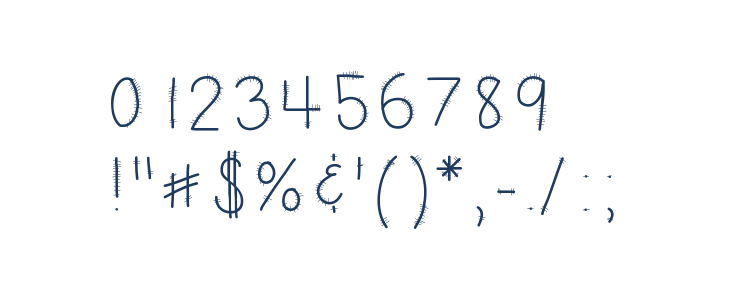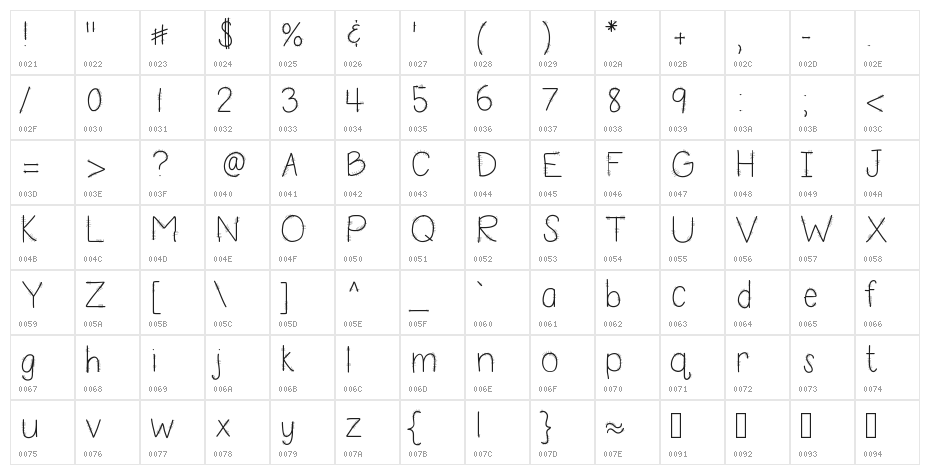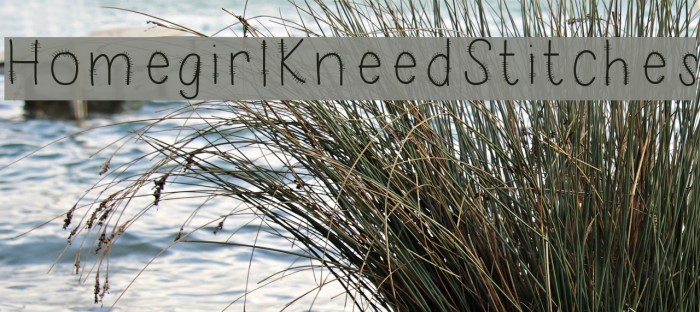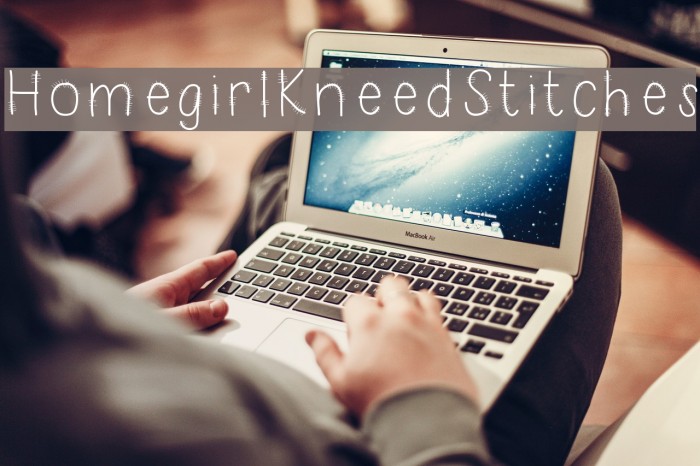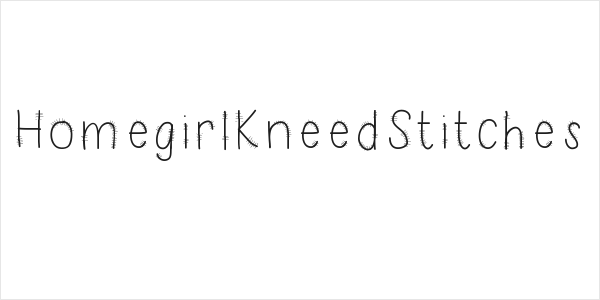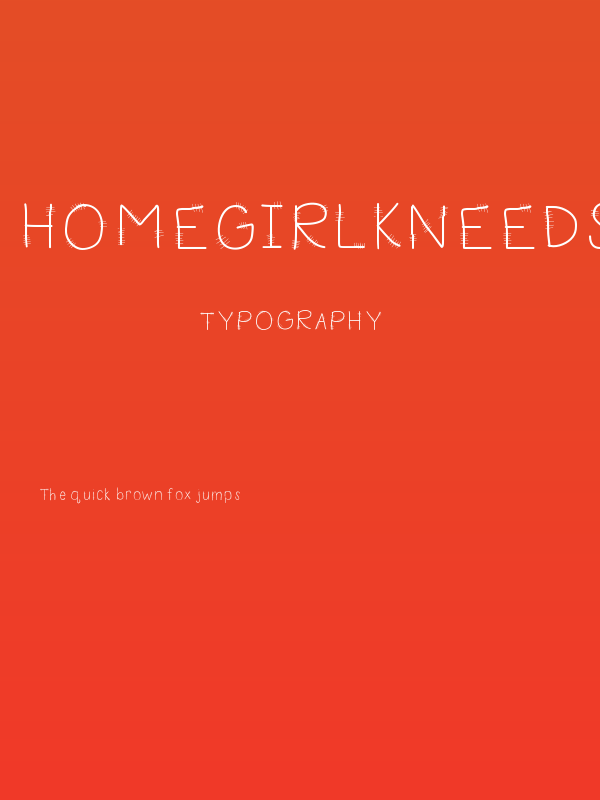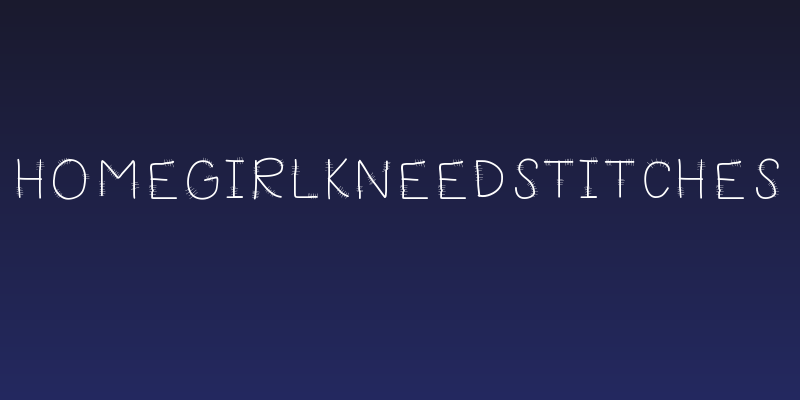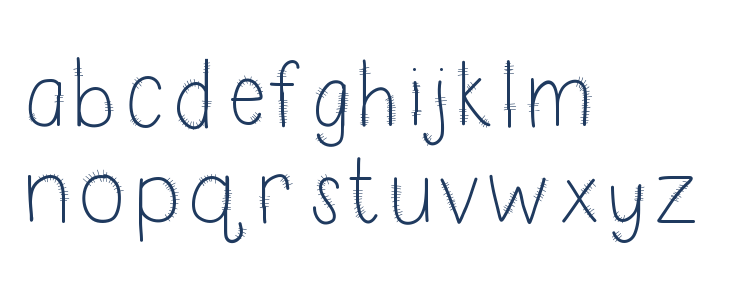
HomegirlKneedStitches Font
HomegirlKneedStitches Description
This font features a playful and quirky design, characterized by its unique stitched appearance. Each letter is adorned with small lines that mimic the look of stitches, giving it a handmade and crafty feel. The characters are slightly irregular, adding to the whimsical nature of the font. The uppercase and lowercase letters maintain a consistent style, with rounded edges and a casual, informal vibe. Numbers and special characters are designed with the same stitched effect, ensuring a cohesive look throughout. This font is perfect for projects that require a touch of creativity and fun.
Overall StyleWhimsical
Use CaseHeadlines, Logos, Creative projects
Proposed ProjectsIdeal for children's books, craft projects, DIY-themed designs, and playful branding.